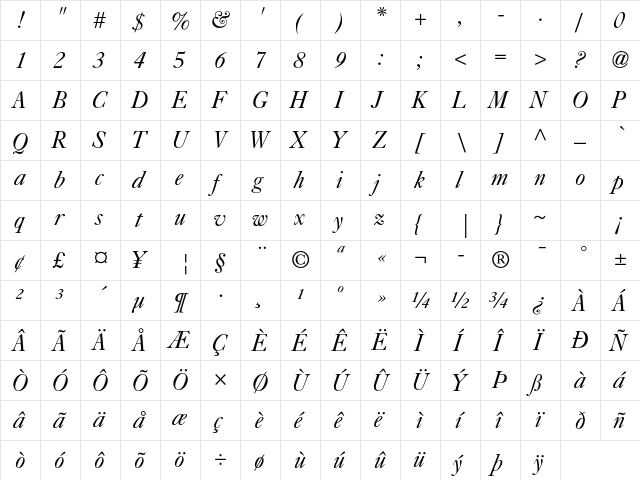
Caslon 540 LT Std Italic Font Preview
| Designer | American Type Founders Staff |
Design Context for Caslon 540 LT Std Typeface
Caslon 540 LT Std offers clean, dependable letterforms without strong stylistic allegiance, making it a practical choice for designers who need flexibility. The slanted form adds forward momentum and visual energy. Its slender proportions lend an understated elegance to any composition.
Pro Tip: Try Caslon 540 LT Std for annotation and caption copy alongside an upright companion — the contrast in angle creates a dynamic but ordered typographic system.